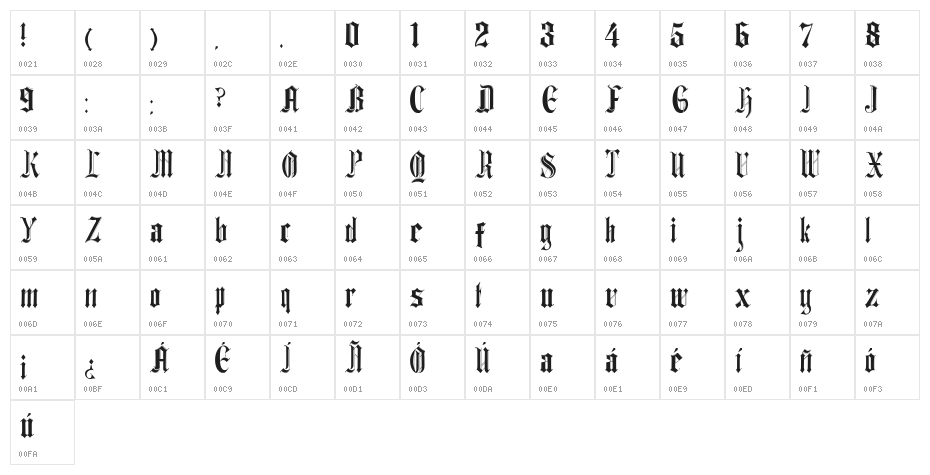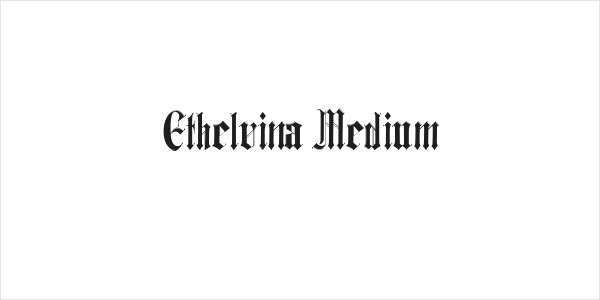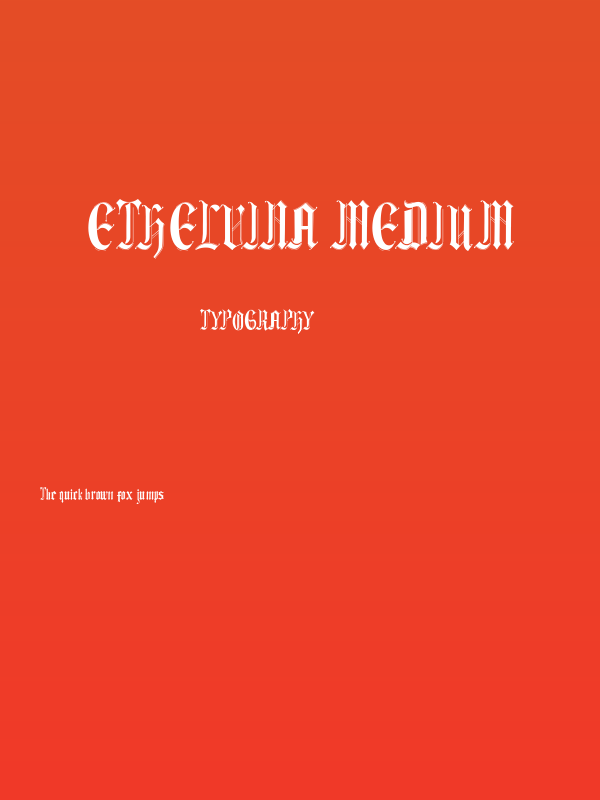
Ethelvina_Medium Font
Ethelvina_Medium Description
This font embodies a classic blackletter style, characterized by its intricate and ornate design. The letters are bold and angular, with sharp edges and a distinct medieval aesthetic. The uppercase letters are particularly elaborate, featuring dramatic flourishes and a strong vertical emphasis. The lowercase letters maintain the same stylistic elements but are slightly more subdued, providing a balanced contrast. Numbers and special characters are designed to match the overall theme, ensuring a cohesive look across all elements. This font is perfect for projects that require a historical or gothic touch, such as invitations, posters, or branding for vintage-themed events.
| Use Case | Headlines, Logos, Decorative text |
| Proposed Projects | Ideal for vintage-themed branding, gothic posters, historical event invitations, and decorative headlines. |